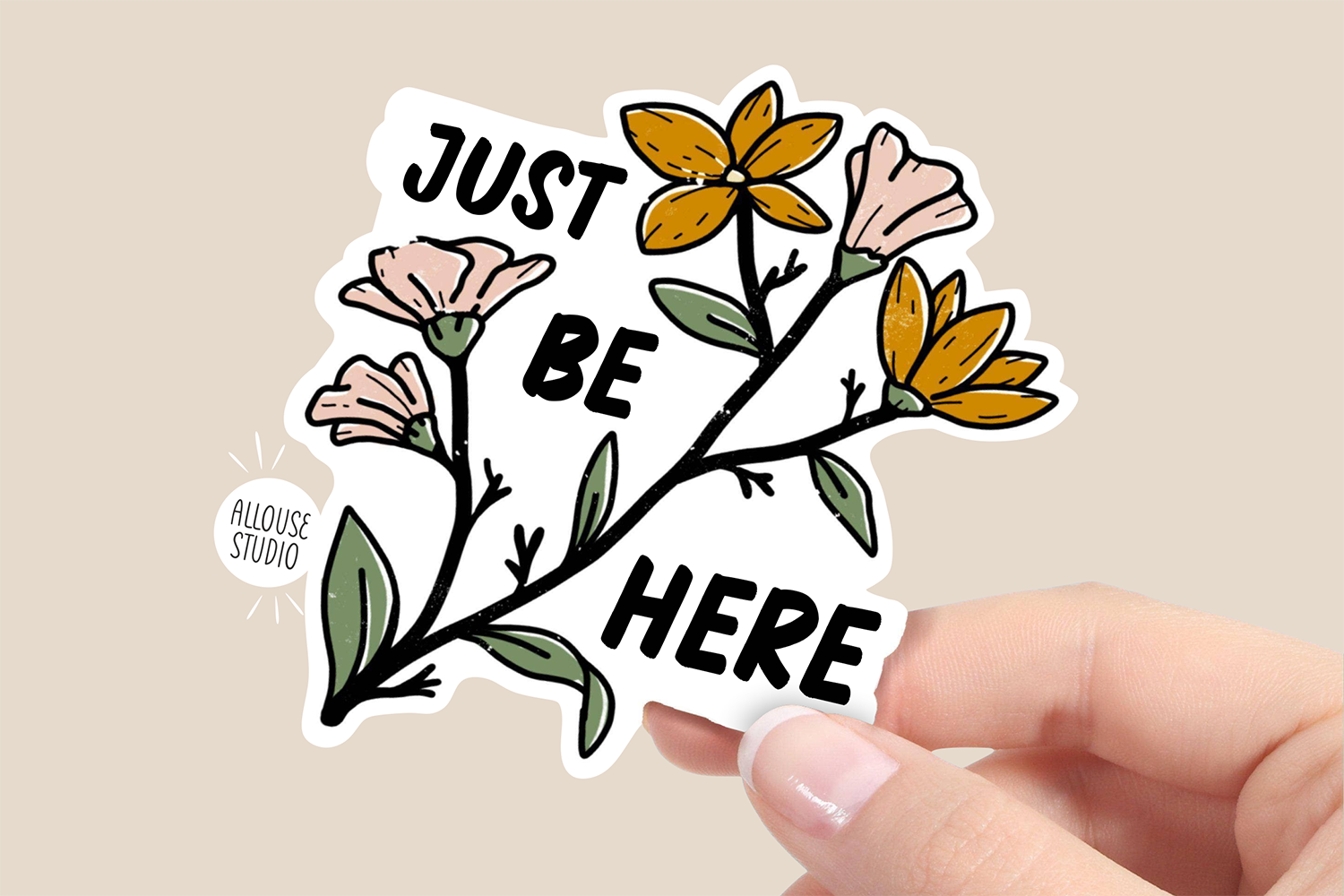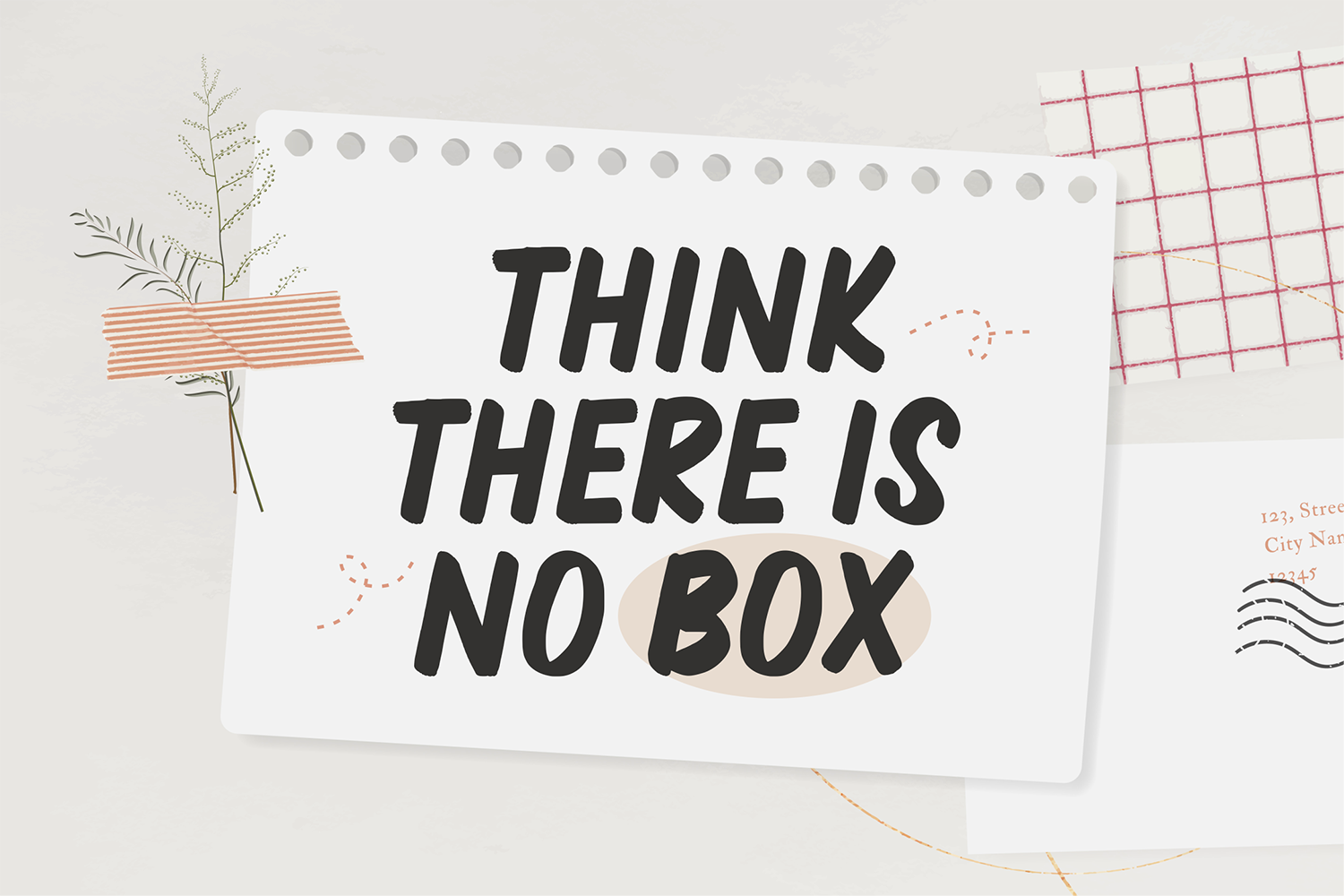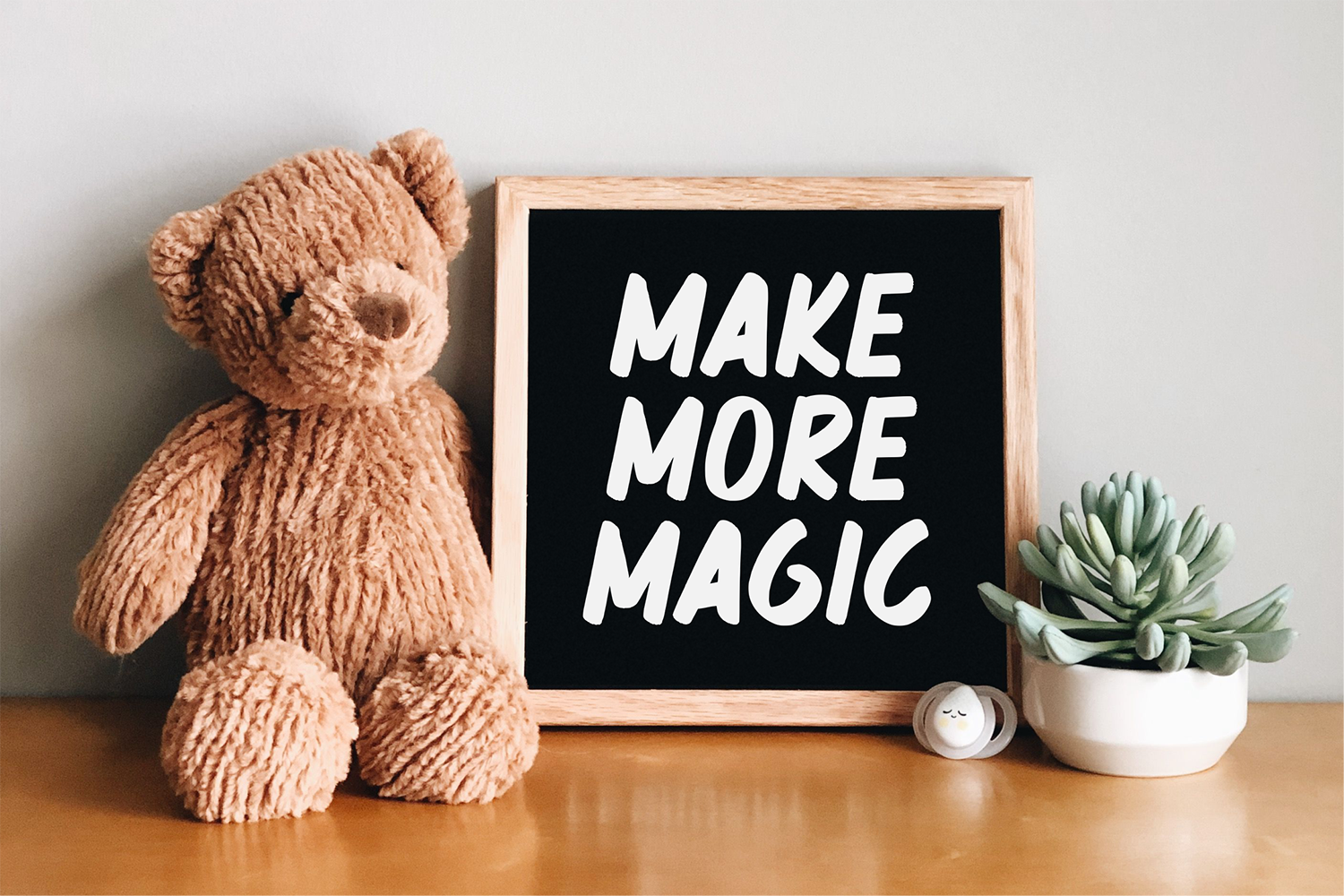
Megah Diterima Free Font
Megah Diterima Free Font is a unique and interesting display font. A little bit quirky, this font looks incredibly adept in a wide variety of contexts. This free typeface was designed by a talented Allouse Studio. If you like it don’t forget to check out the full version.